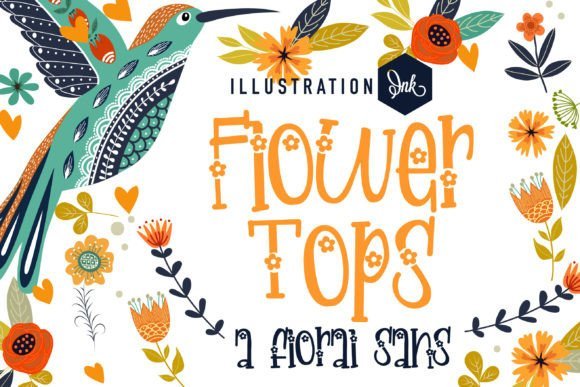
Enter Flower Tops Font, a vibrant and playful decorative font that adds a touch of whimsy to any project. With its flower-inspired characters, Flower Tops Font is perfect for invitations, posters, and greeting cards that need a little extra flair. Whether you’re a seasoned designer or a DIY enthusiast, this font is sure to bring a smile to your face and a dash of creativity to your work.
Key Features of Flower Tops Font
- Font Family: Flower Tops is a sans-serif font family designed for digital use.
- Character Count: Includes over 200 characters, including uppercase and lowercase letters, numbers, and punctuation marks.
- Unique Characteristics: Features a unique, modern design with a subtle flair at the ends of the stems, giving it a playful and elegant feel.
Flower Tops Font Review
- Playful and Whimsical Feel: Flower Tops Font brings a fun and carefree vibe to any design. It’s perfect for projects that need a touch of personality.
- Beautiful Brushstrokes: The font features elegant brushstrokes that add a hand-drawn feel, making it ideal for illustrations and creative projects.
- Versatile: Flower Tops Font comes in multiple styles, from bold and playful to delicate and elegant, making it suitable for a wide range of designs.
- Limited Readability: The font’s unique style can make it difficult to read, especially at smaller font sizes.
- Not Suitable for Body Text: Due to its decorative nature, Flower Tops Font is best used for headings, titles, or short phrases rather than body text.
Flower Tops Font is a lovely addition to any designer’s toolkit. While it may not be the best choice for every project, it’s perfect for those that need a touch of whimsy and personality. With careful use and consideration, this font can add a unique and beautiful element to your designs.
Flower Tops Font is perfect for creating whimsical and playful designs, such as invitations, greeting cards, and children’s party decorations.
To get the most out of this font, use it in combination with floral patterns and pastel colors to create a cohesive and eye-catching design.
Experiment with different font sizes and styles to add visual interest and depth to your design.
Alternatives to Flower Tops Font for Designers
Great Vibes Font is a modern, cursive script font that is perfect for creating a relaxed and casual atmosphere. It is ideal for use in titles, headings, and quotes. When to use: Wedding invitations, social media posts, and blog headings.
Great Vibes Font is more elegant and refined compared to Flower Tops Font, which has a more playful and whimsical feel.
Lobster Font is a fun, cursive script font that is great for creating a sense of excitement and energy. It is ideal for use in titles, headings, and calls-to-action. When to use: Marketing materials, social media ads, and promotional products.
Lobster Font is more bold and attention-grabbing compared to Flower Tops Font, which is more delicate and subtle.
Alex Brush Font is a elegant, handwritten font that is perfect for creating a sense of sophistication and luxury. It is ideal for use in titles, headings, and body text. When to use: High-end branding, luxury products, and elegant invitations.